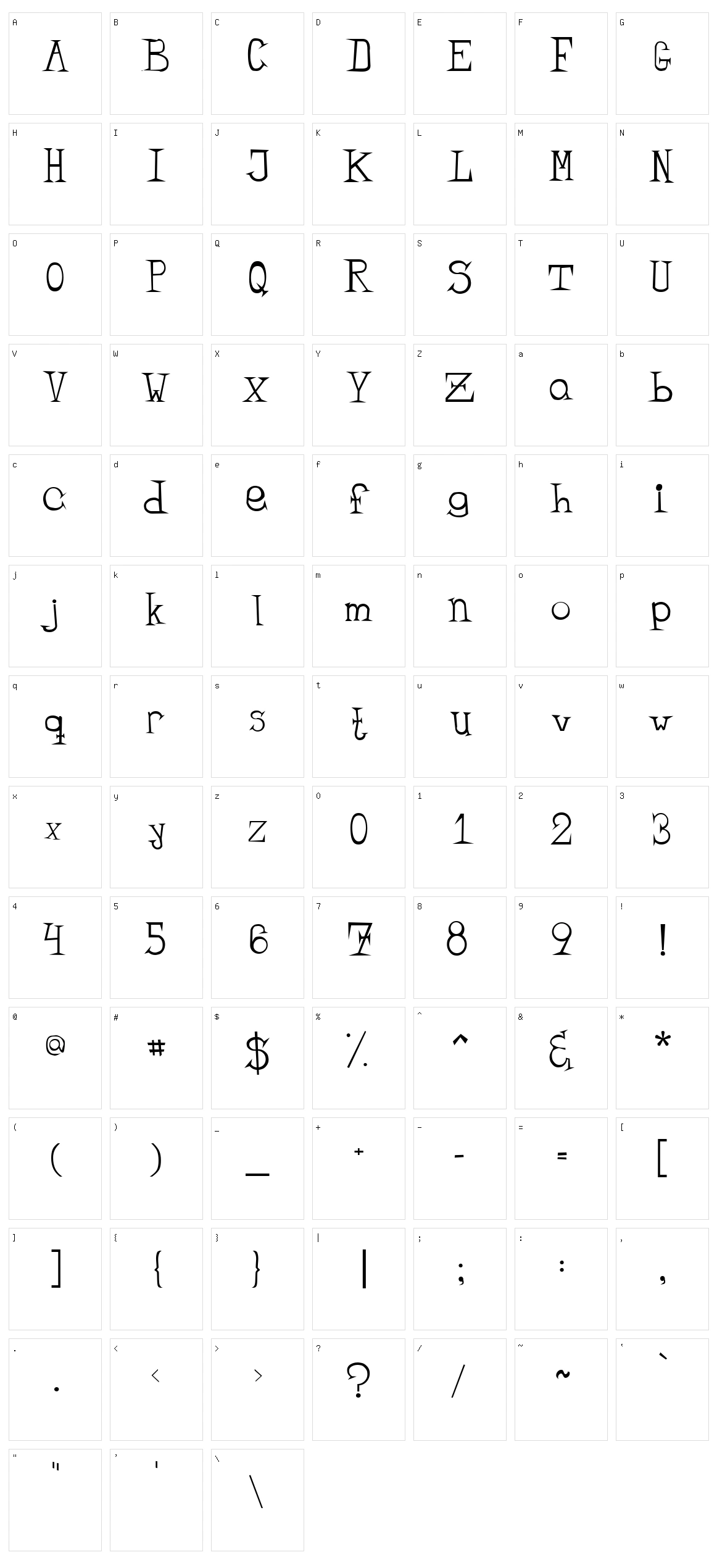
A sort description:
FDF vol. 1 is 8 funky, strange, spaced out, cool headline typefaces, wich will make your designs
look VERY trendy. The fonts have been made with a lot more care than the average shareware font.
All fonts (except the most complex ones) includes all special and international characters.
Bandit - A cute, naive font with big feets.